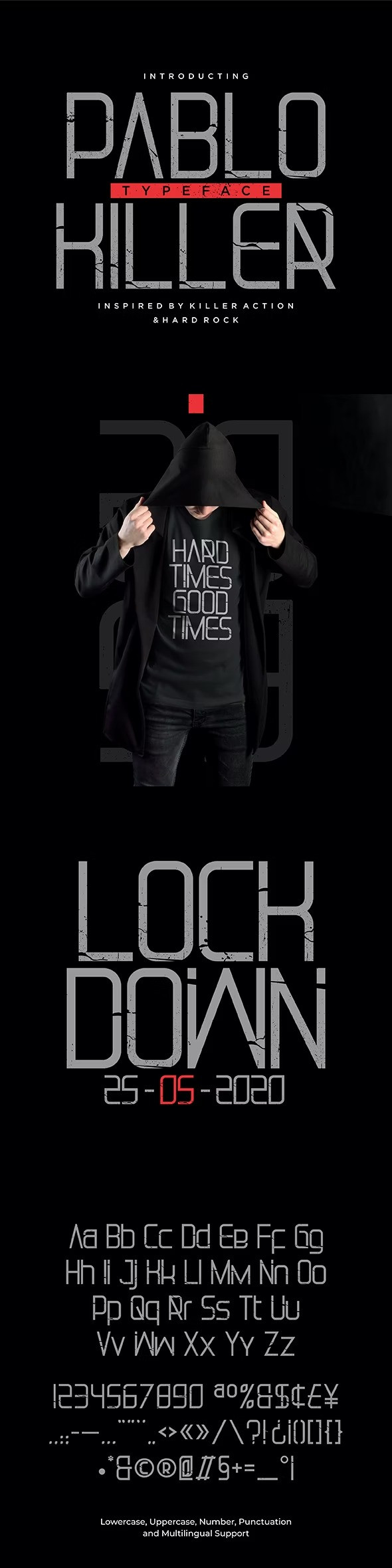
Pablo Killer Font
Pablo Killer Font, is an apocalyptic, urban and grunge that is a great choice to be used in apparel, label, packaging, poster, and etc.